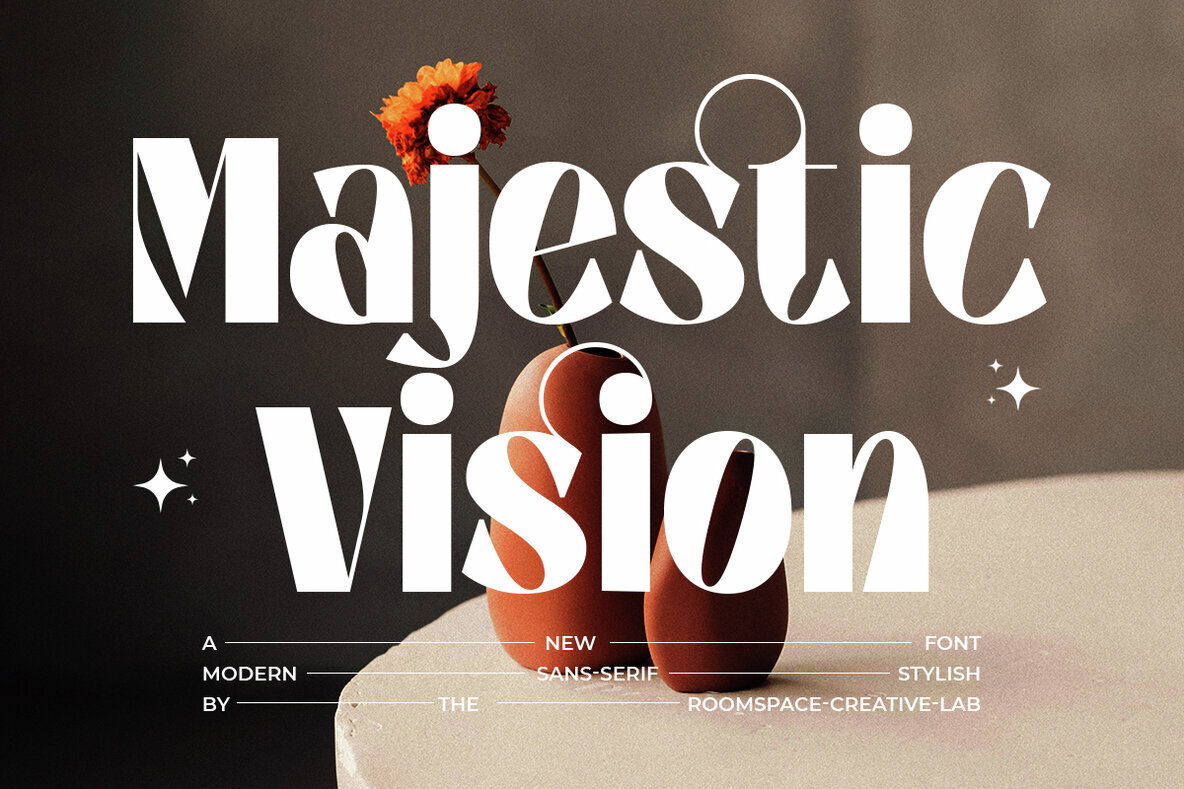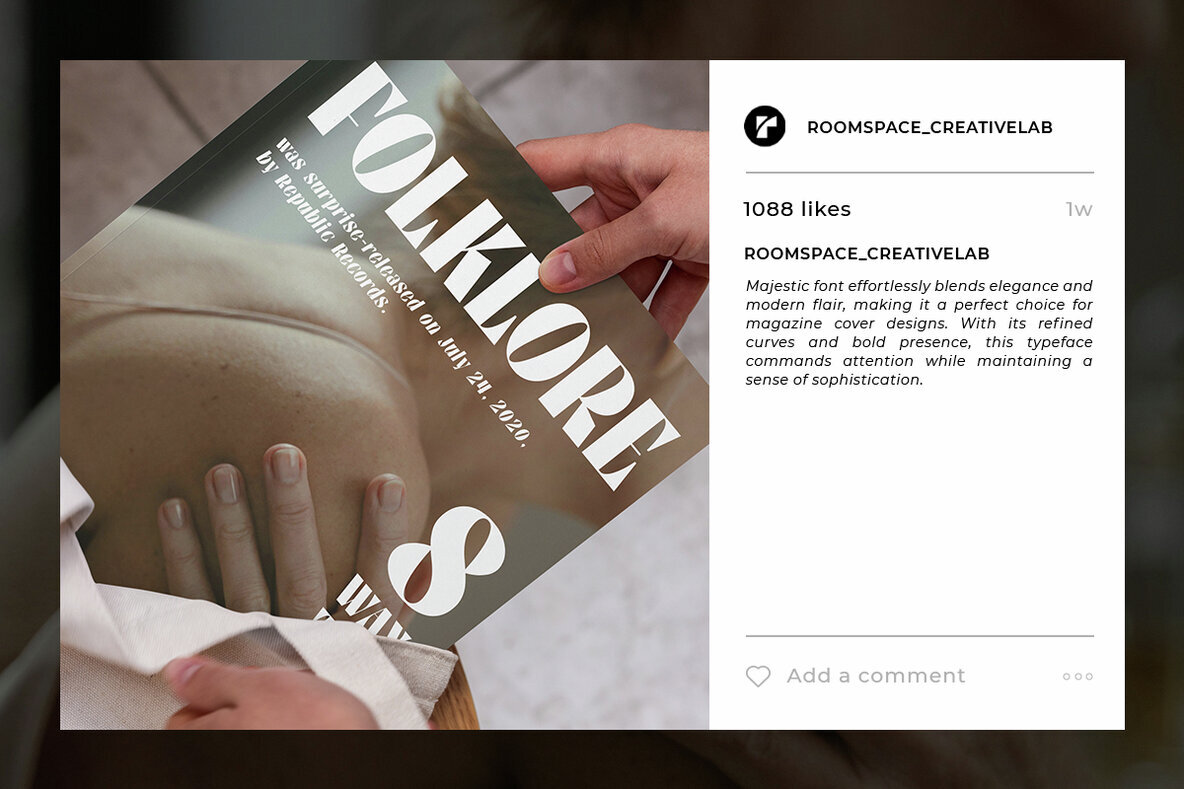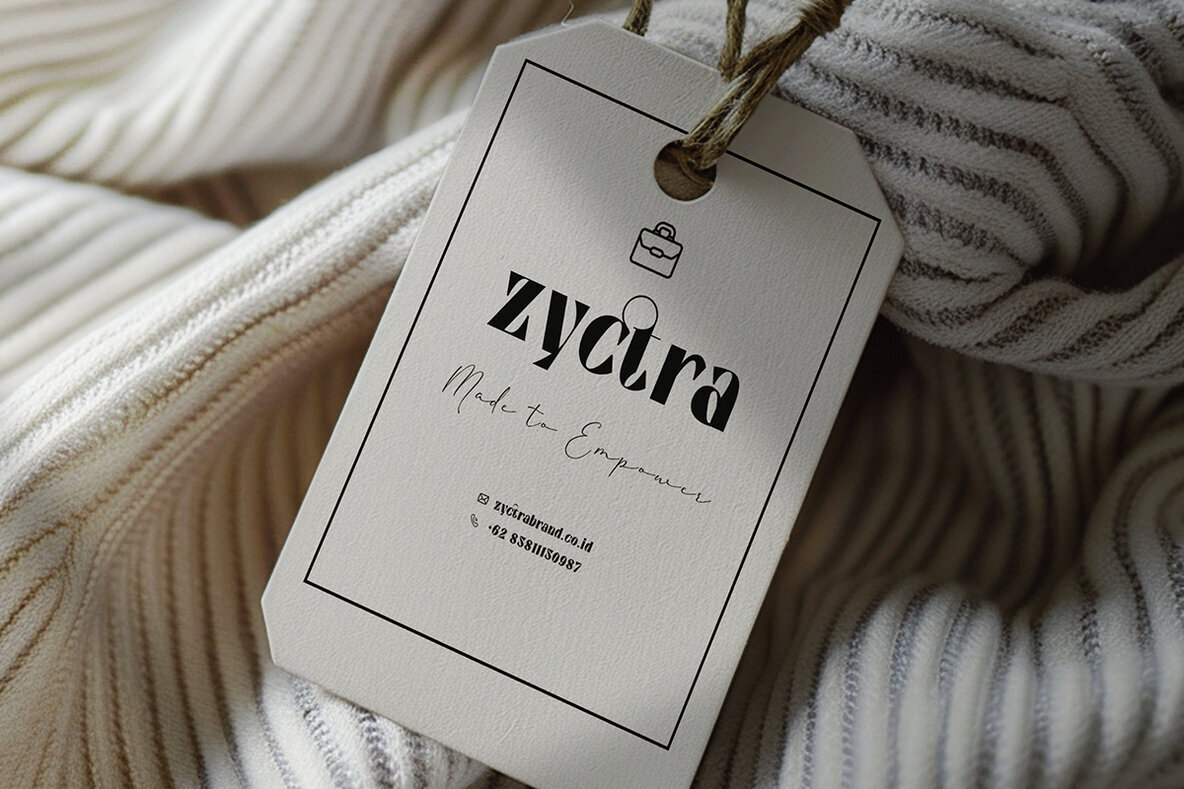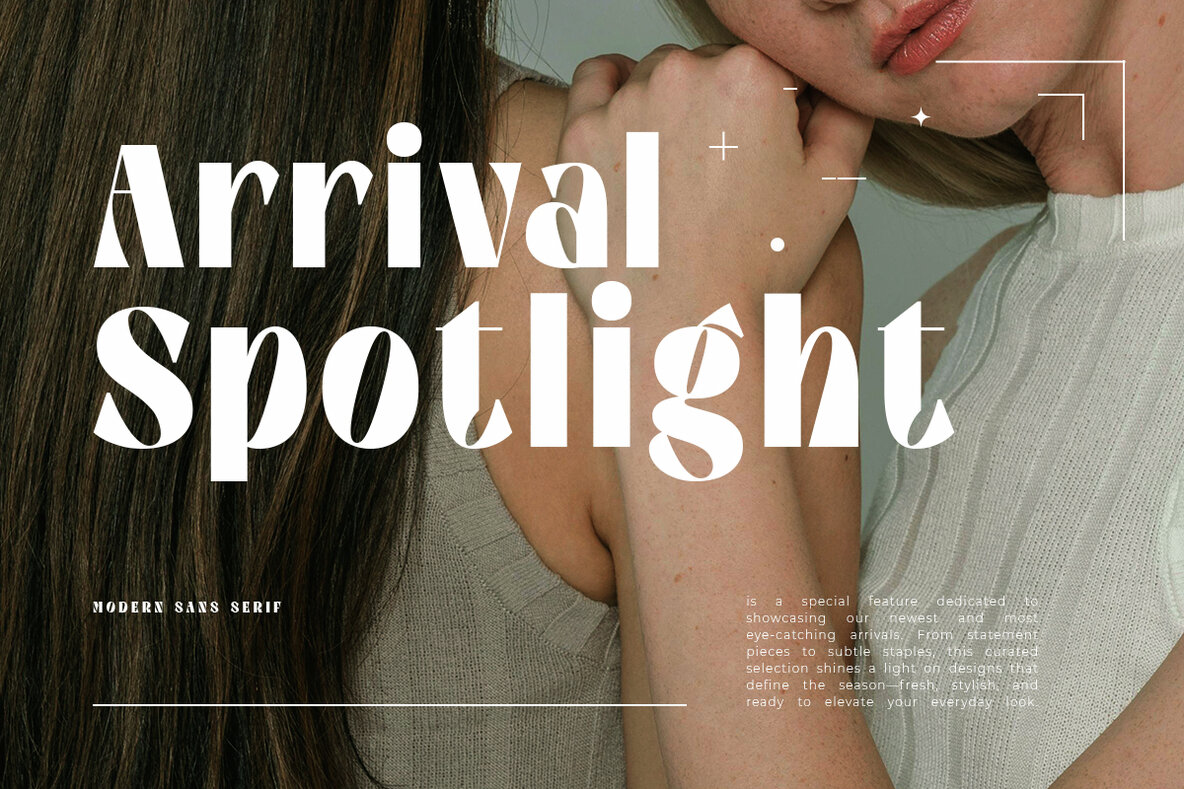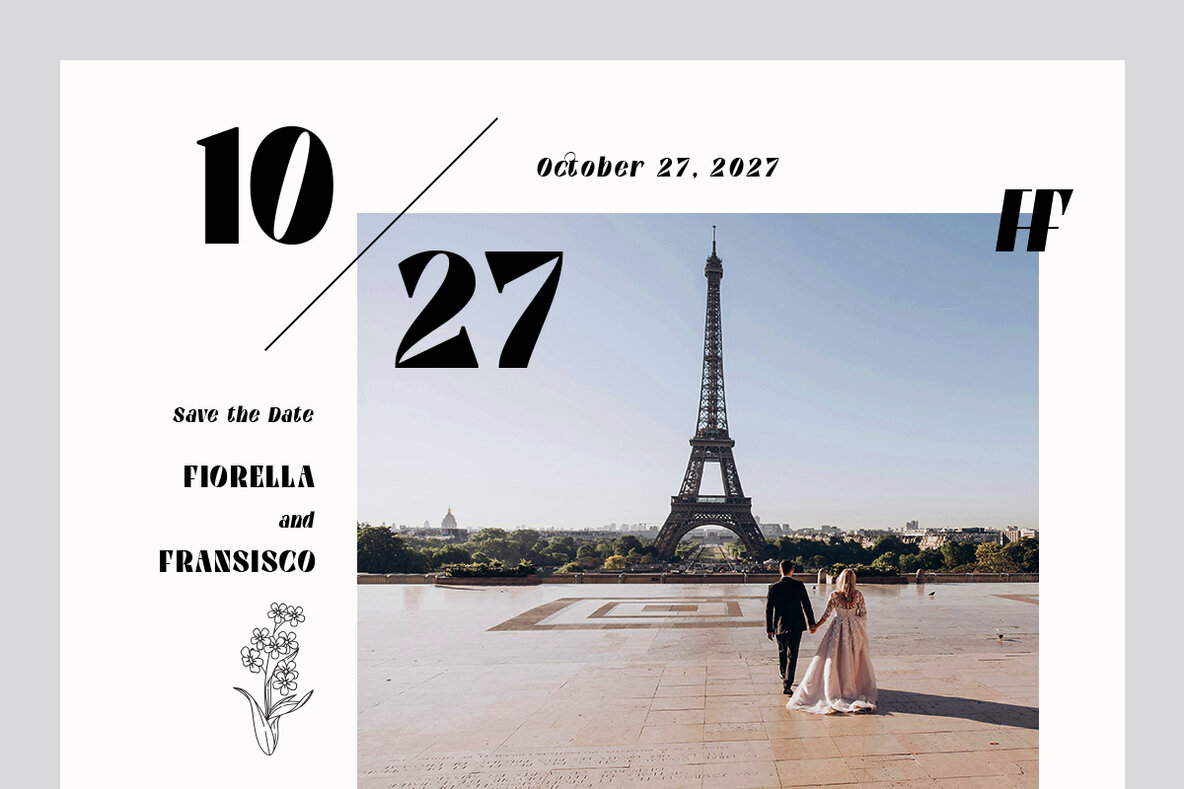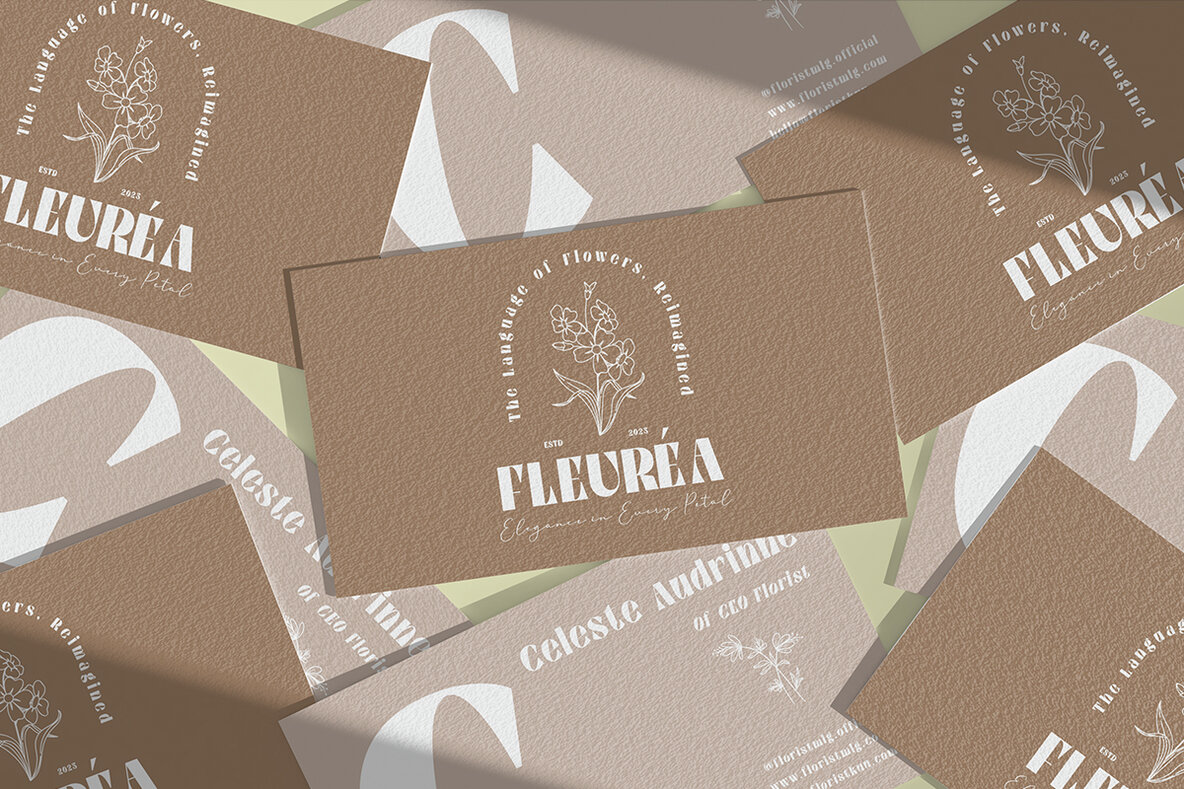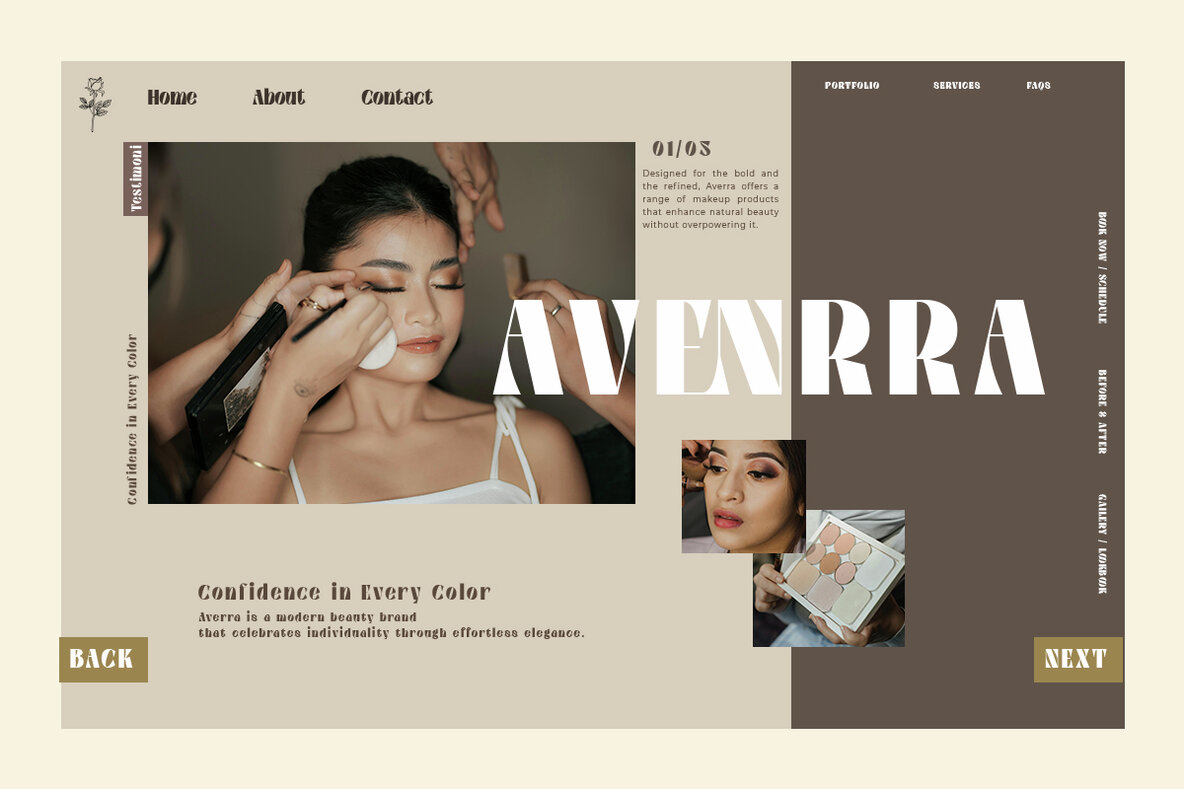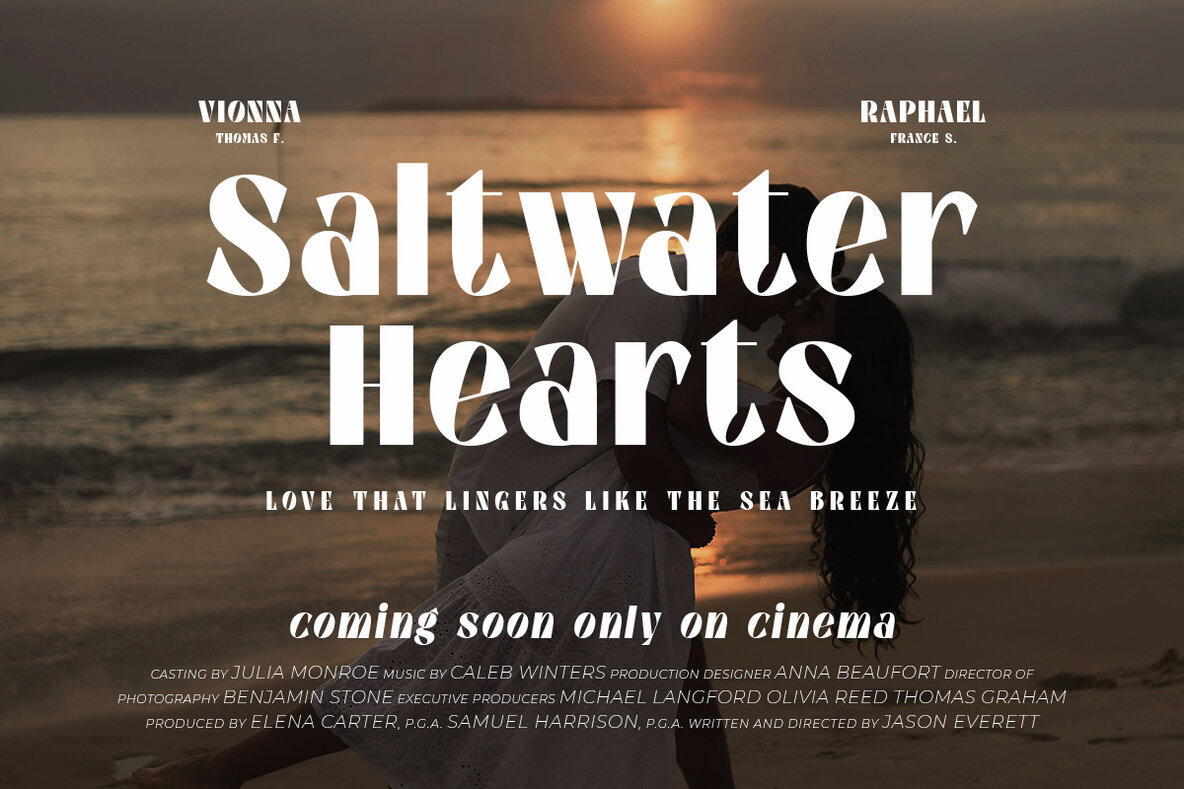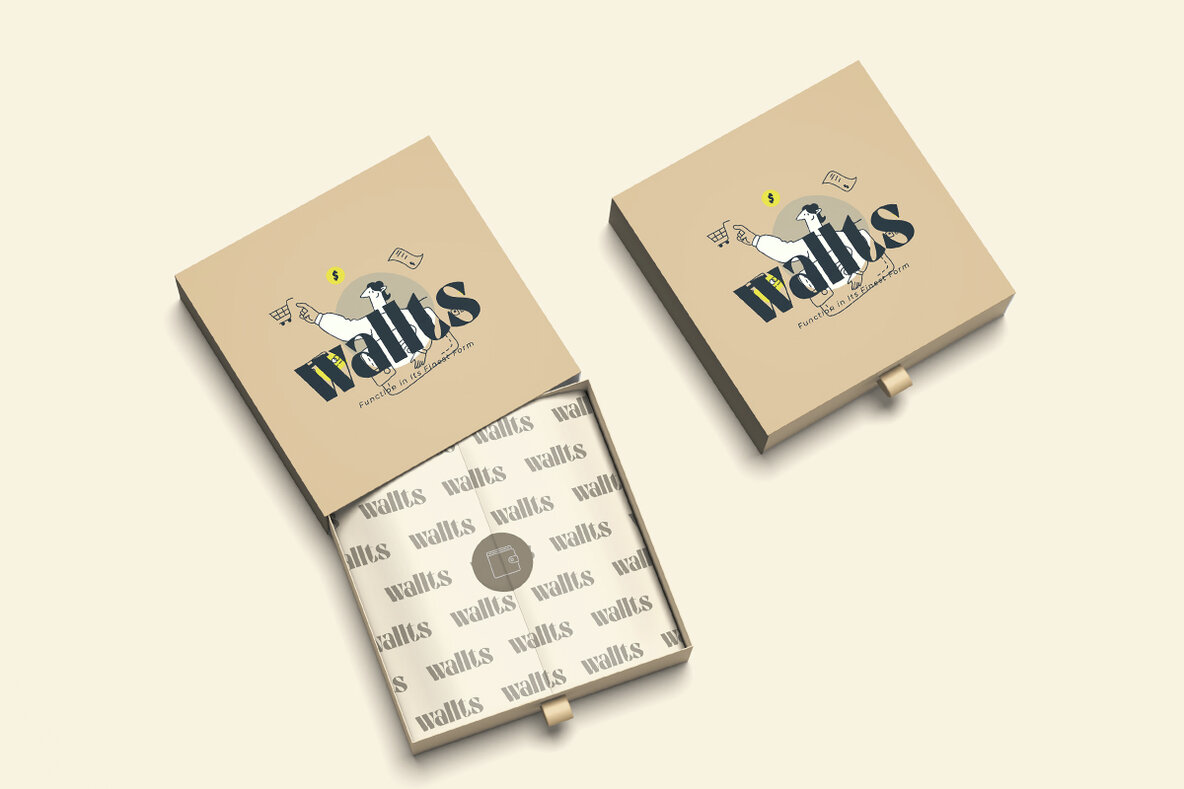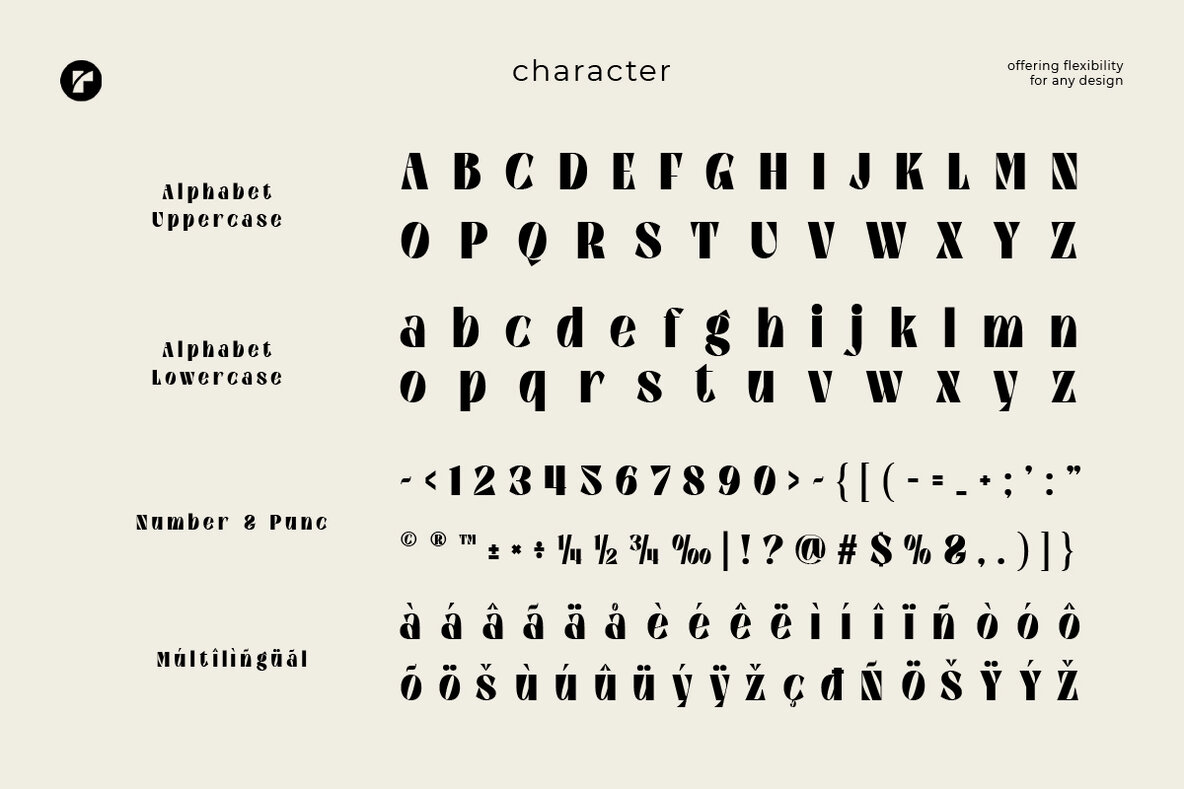
Majestic Vision Font
Majestic Vision is a display serif font that commands attention with its bold shapes and sculptural contrast. It merges retro aesthetics with a modern sensibility, making it a perfect choice for brands, creatives, and designers seeking high-impact visuals with a nostalgic twist. This font embodies a poised yet playful energy, ideal for Instagram graphics, product packaging, editorial layouts, lifestyle blogs, creative portfolios, and branding campaigns that benefit from expressive typography. The balance between heavy verticals and whimsical, balloon-like counters gives it a unique sense of gravity and movement. Its wide, structured letterforms soften with quirky, unexpected curves, making each character feel distinct. Majestic Vision sets a confident, stylish, and memorable tone.Majestic Vision: The Retro-Modern Display Serif